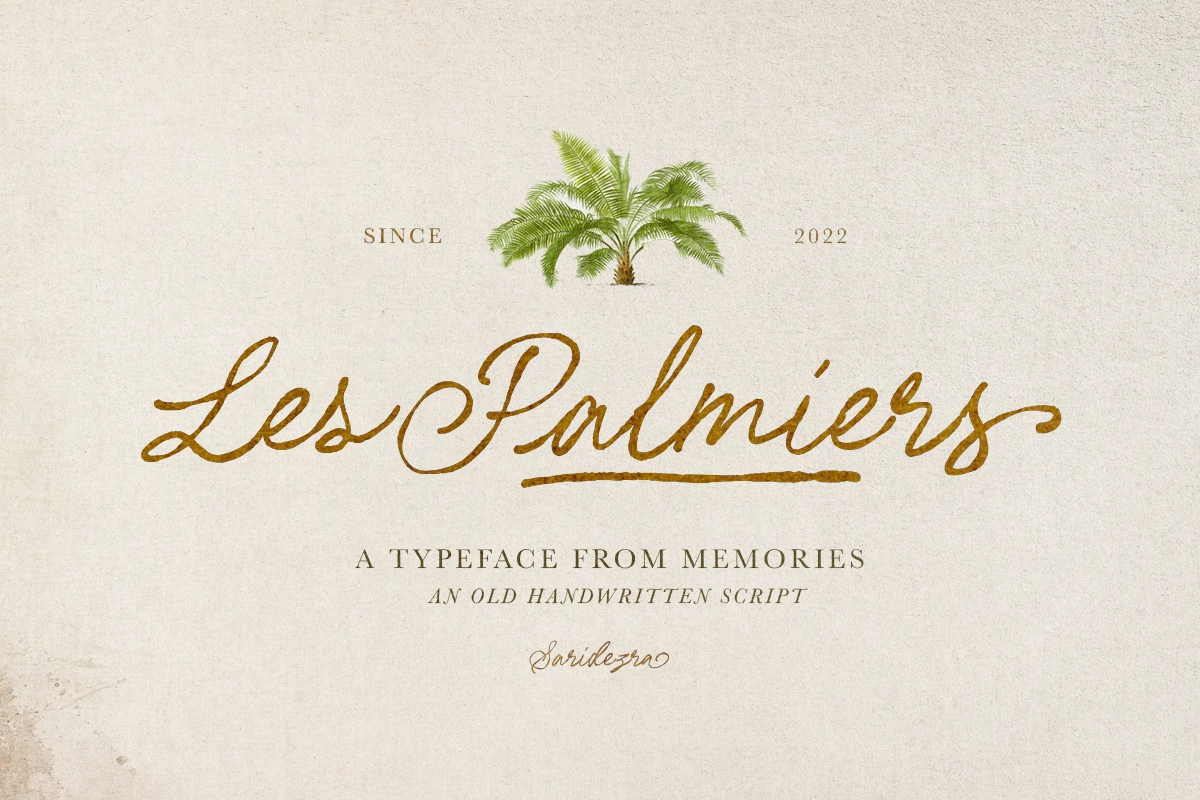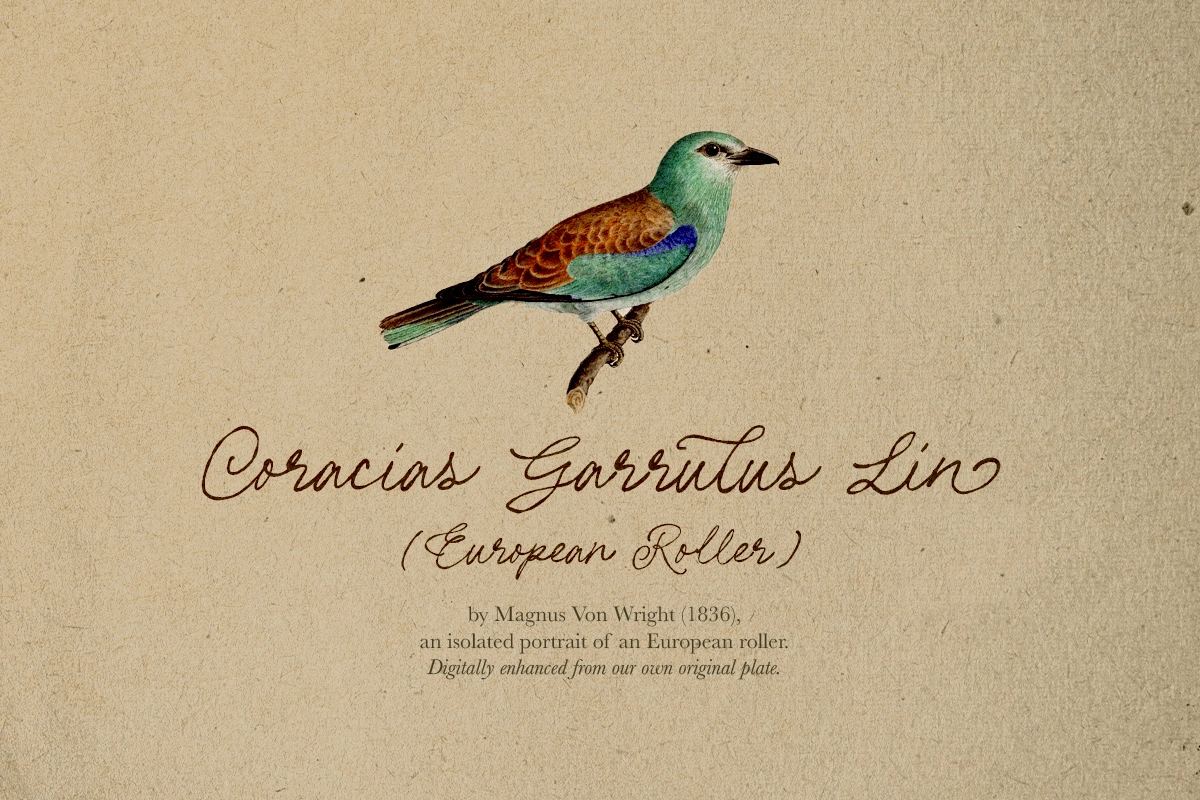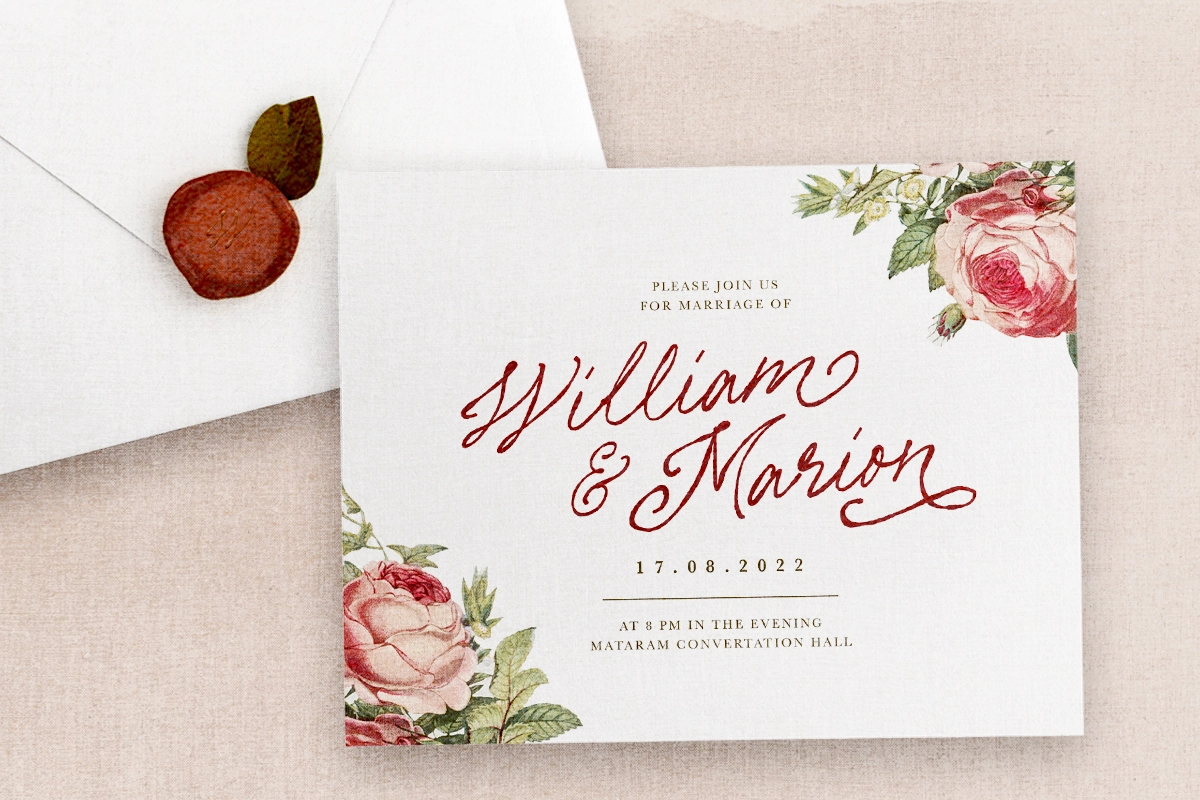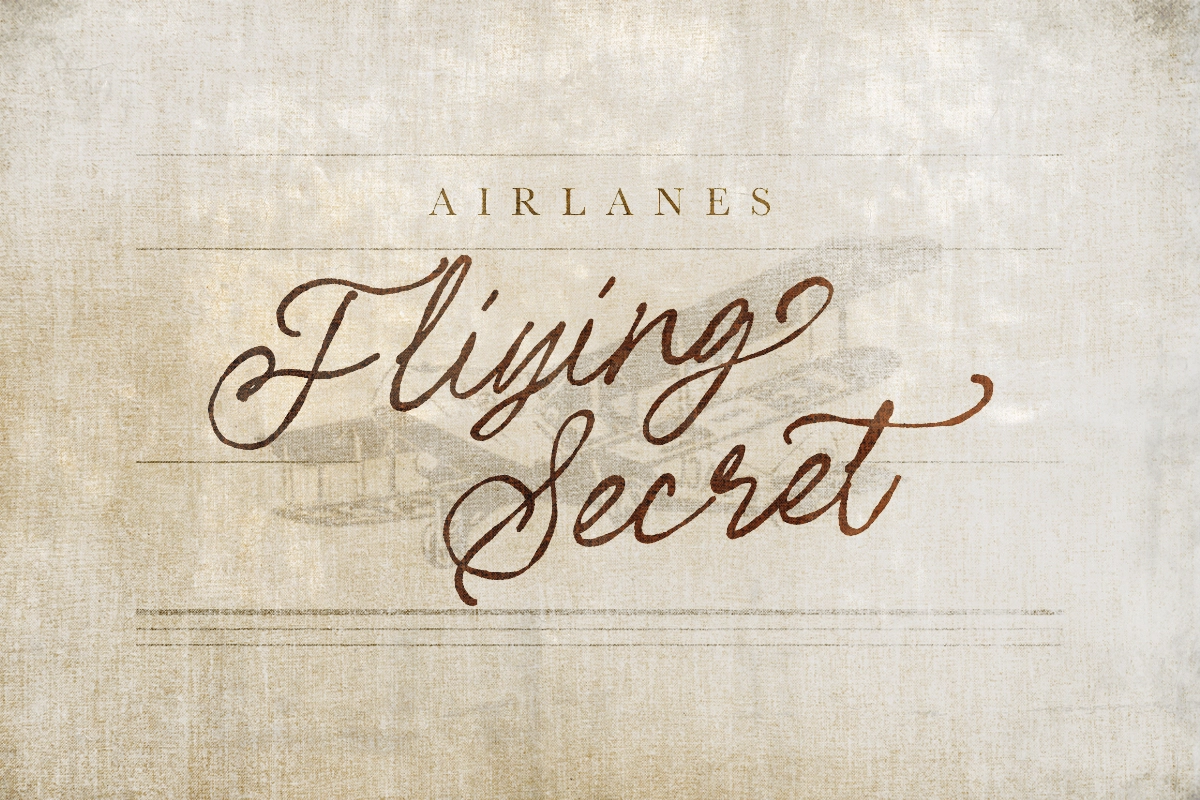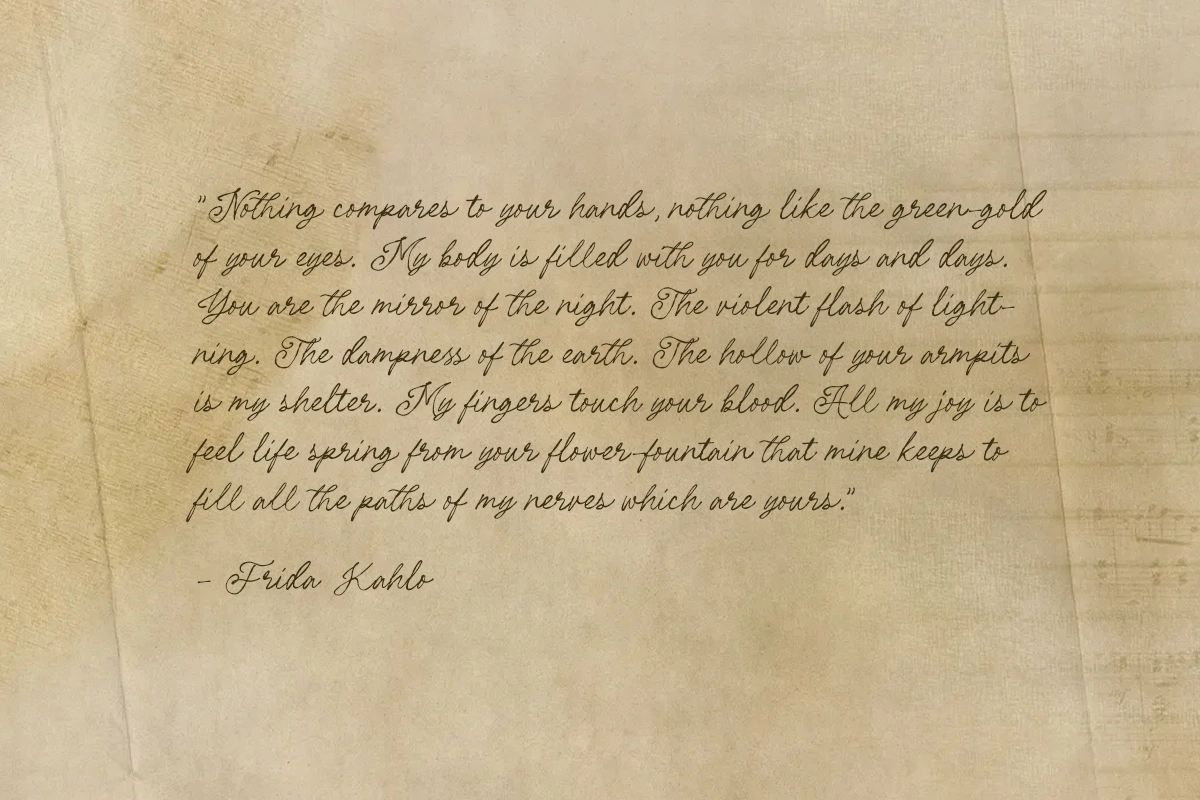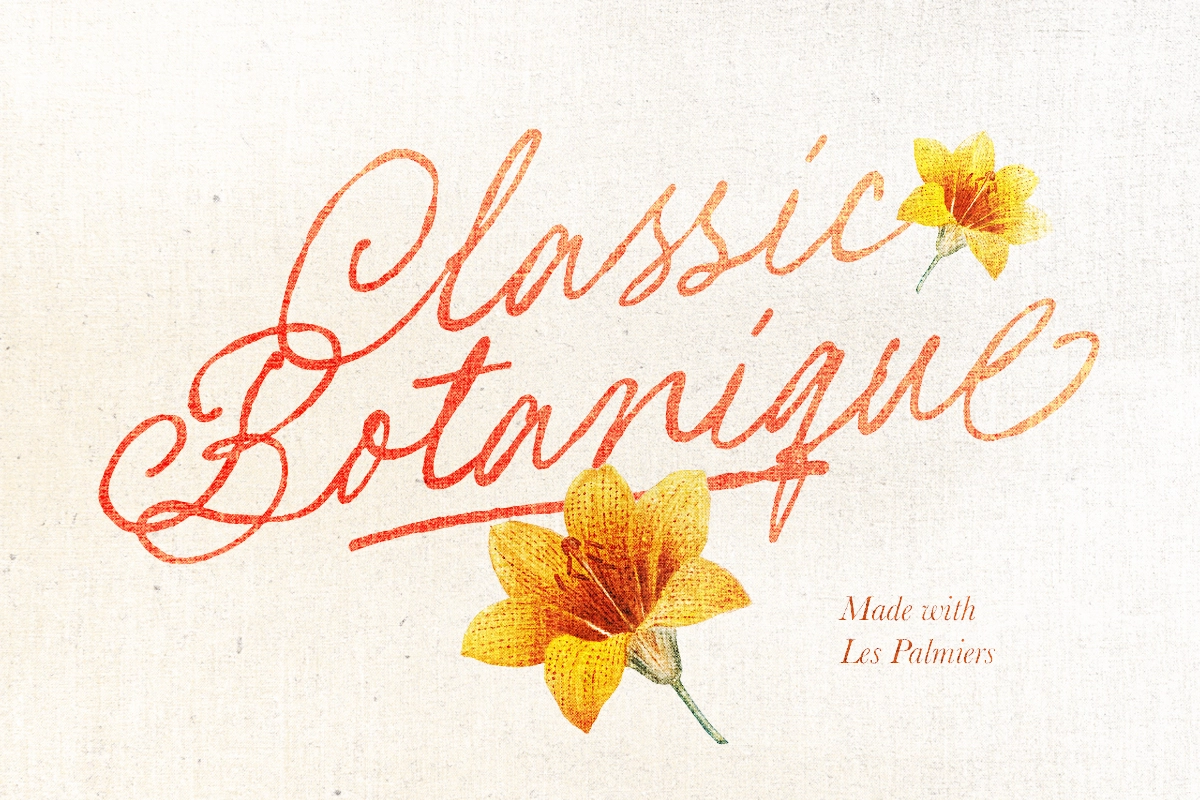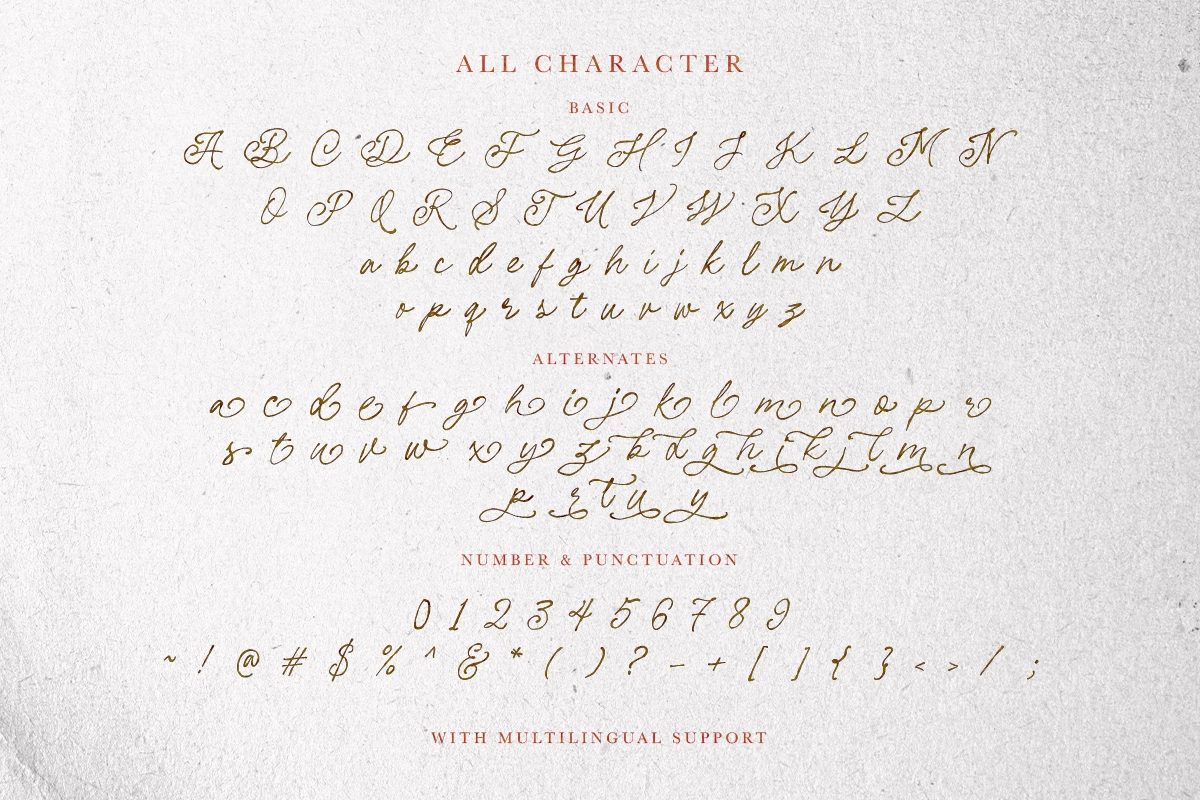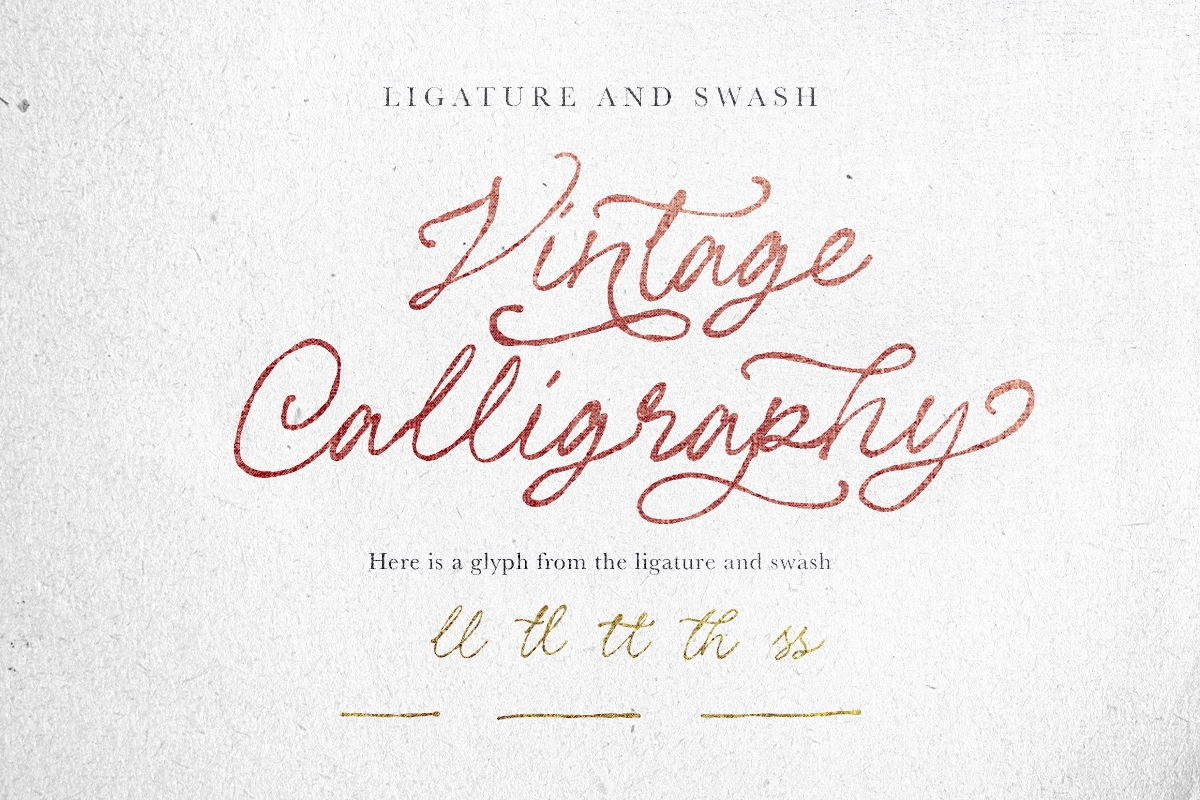
Les Palmiers - Handwritten Script
Les Palmiers
Les Palmiers is a vintage and rough handwritten script. This font include alternates and swash that will make your project more attractive. With rough and imperfect side, this font will also make your design looks more vintage and old. Les Palmiers also support multi language!